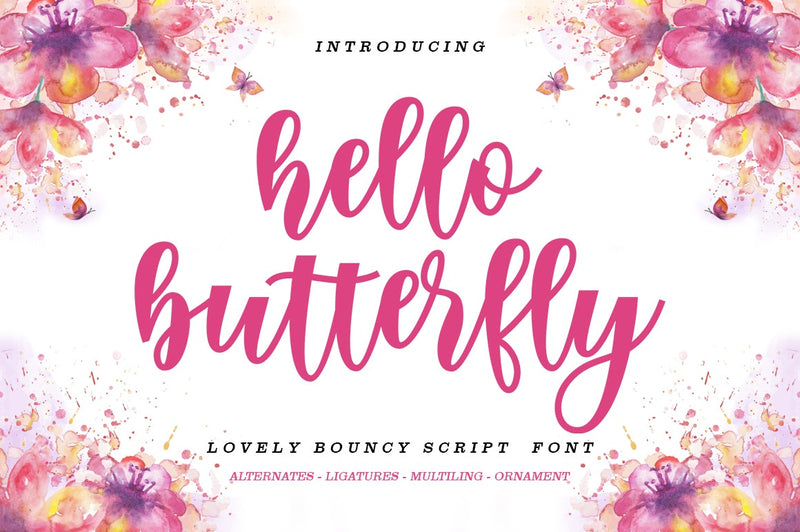
hello butterfly
hello hutterfly is a beautiful and romantic handwritten font. It looks lovely on wedding invitations, thank you cards, quotes, greeting cards, logos, business cards and much more.